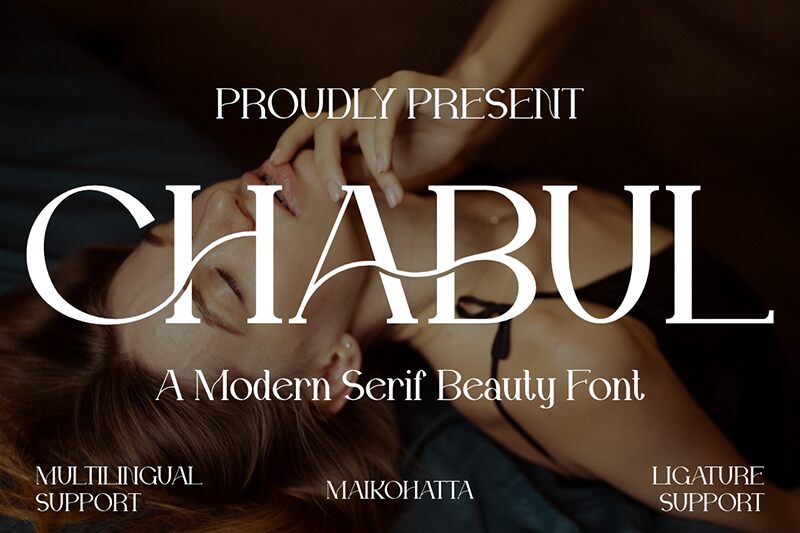
CHABUL
Chabul font by Gilang Ternadho is an elegant and sophisticated typeface with a classic touch. With its refined serifs and delicate appearance, the font has a modern twist which allows for easy applicability in any of the users’ projects. Chabul can be instantly recognizable so readers will not be able to take their eyes off whatever message it carries.
Try Chabul when designing books, magazines, recipe cards, invitations, clothing tags and labels, advertisements posters, restaurant or cafe menus among others. All other possibilities are open since this free serif font can blend seamlessly into content and give it an elevated overall look.